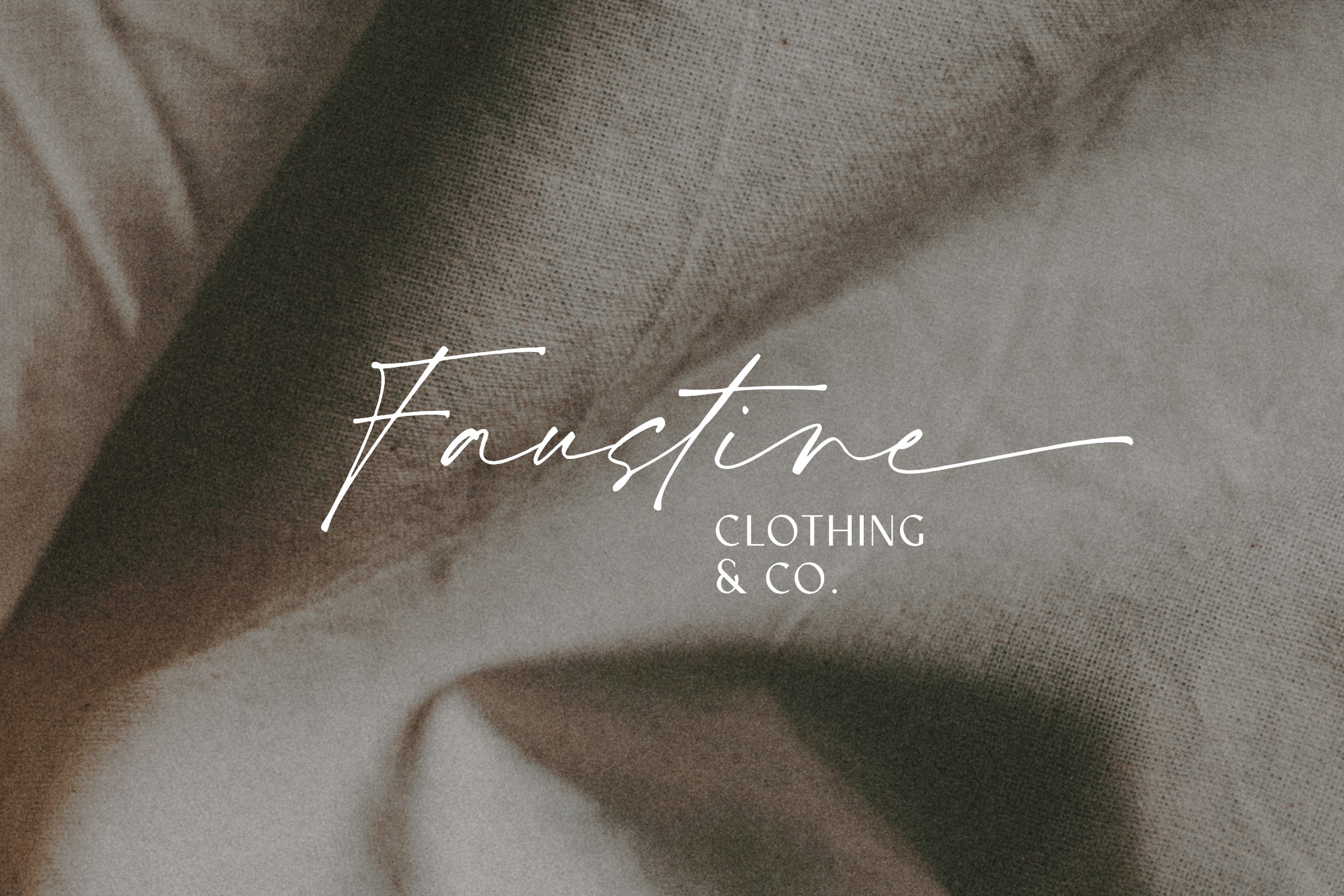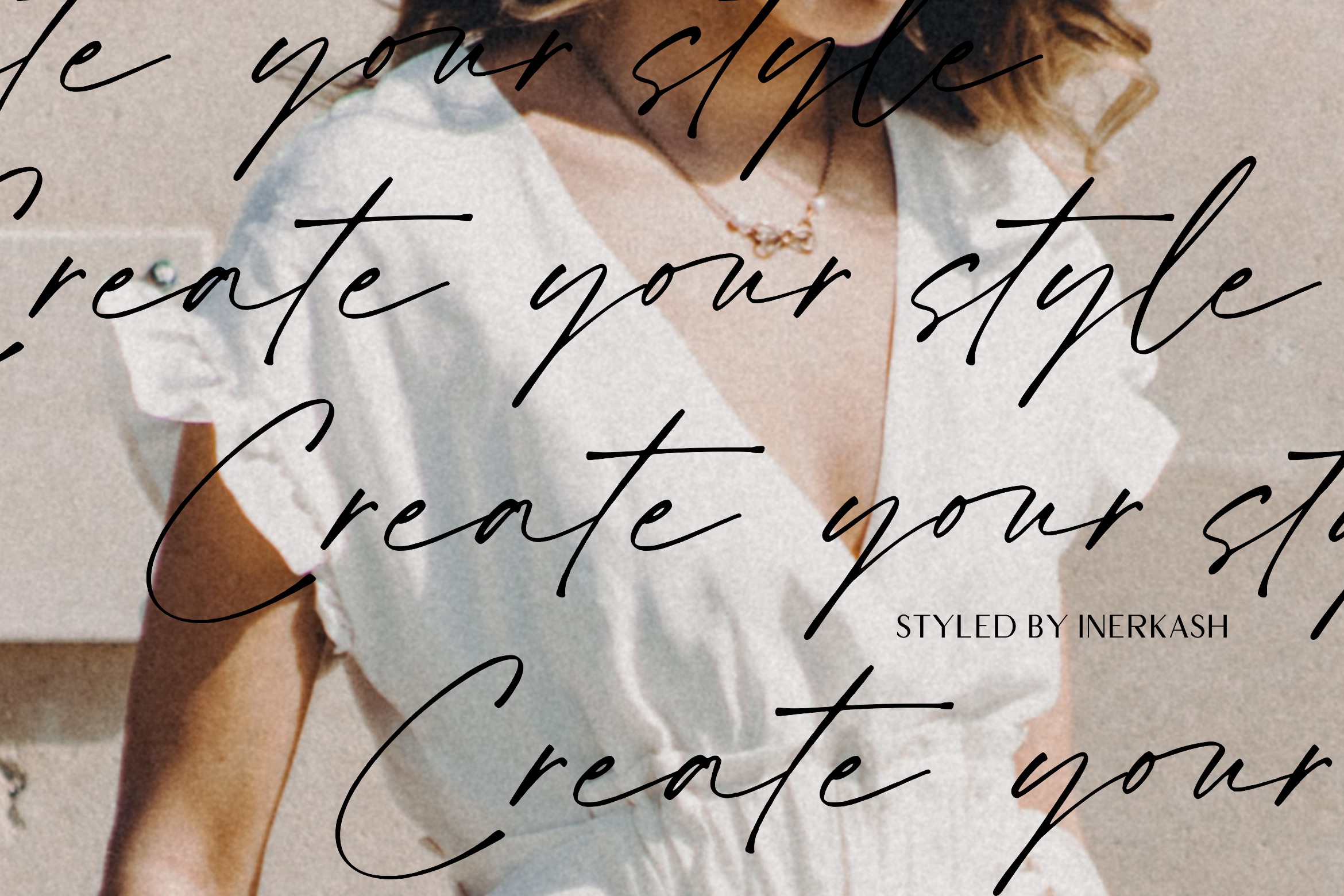
Friendlist Font
Friendlist Handwritten Font is a modern and stylish signature font. This Font have natural flow and unique shape for each letter.
Friendlist Font is perfect for many design needs such as merch, T-shirts, signature logo, wedding, book covers, social media posts, websites, events, and many more.